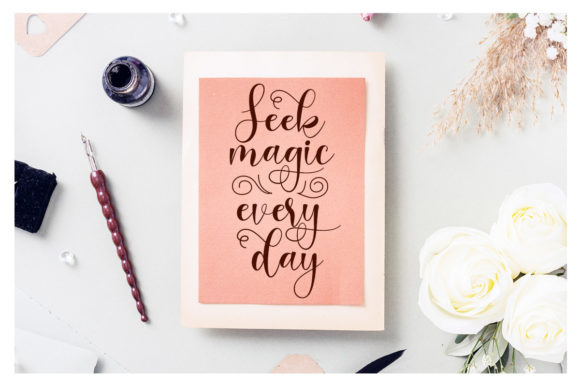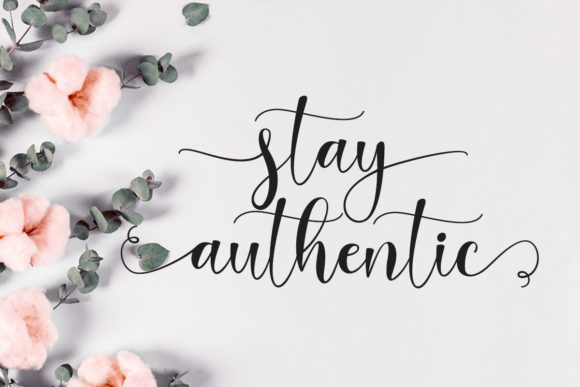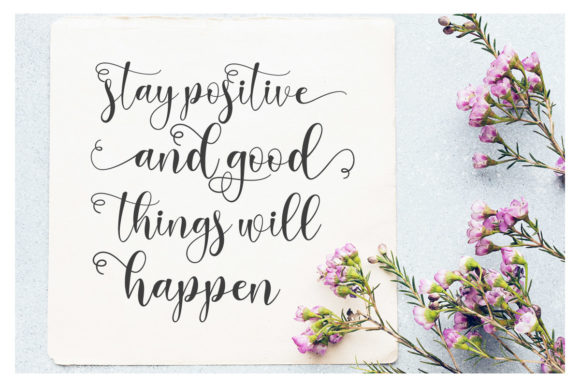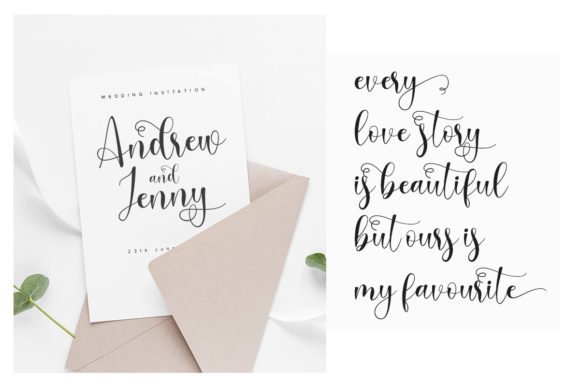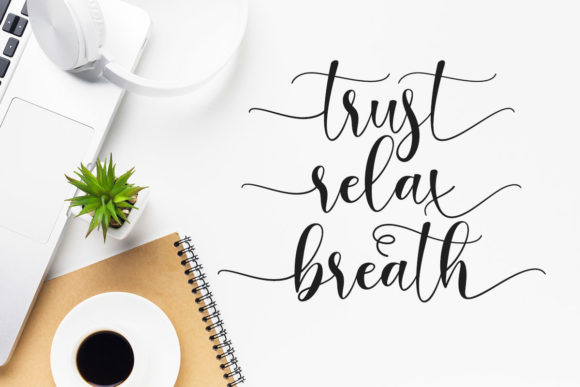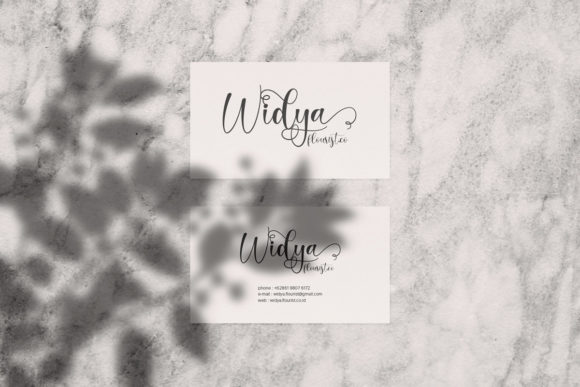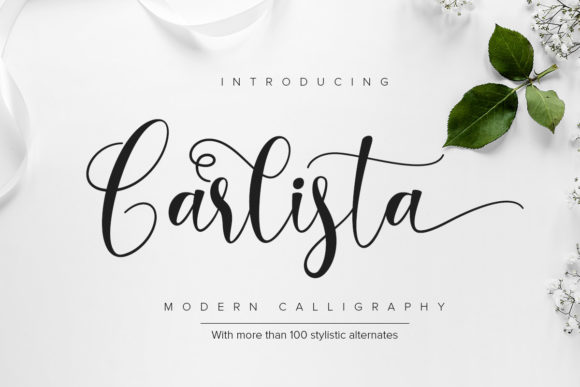
Introducing Carlista Font: The Ultimate Handwritten Script for Creative Projects
Are you a designer, crafter, or DIY enthusiast looking for a font that can add a personal touch to your creative projects? Look no further than Carlista Font, a cute and casual handwritten script that is sure to delight. With its incredibly friendly feel, gorgeous swashes, and ligatures, Carlista is the perfect choice for anyone looking to turn their creative ideas into true works of art.
The Characteristics of Carlista Font
Carlista Font is a beautifully designed handwritten script that boasts a range of characteristics that make it stand out from other fonts. Its casual and friendly feel makes it perfect for a wide range of creative projects, from social media graphics and Instagram posts to calligraphy scripts and DIY projects. The font features:
- Gorgeous Swashes: Carlista Font comes with a range of gorgeous swashes that can be used to add a touch of elegance and sophistication to your designs.
- Ligatures: The font also features ligatures, which are special characters that combine two or more letters to create a single, flowing character.
- Cute and Casual: Carlista Font has a cute and casual feel that makes it perfect for creative projects that require a personal touch.
- Handwritten: The font is handwritten, which gives it a unique and personal feel that is perfect for adding a touch of warmth and personality to your designs.
Uses for Carlista Font
Carlista Font is an incredibly versatile script that can be used for a wide range of creative projects, including:
- Instagram Graphics: Use Carlista Font to create stunning Instagram graphics that are sure to grab the attention of your followers.
- Calligraphy Scripts: The font is perfect for calligraphy scripts, making it a great choice for DIY projects and handmade cards.
- DIY Projects: Carlista Font can be used for a wide range of DIY projects, from crafting and scrapbooking to woodworking and home decor.
- Branding and Marketing: The font can also be used for branding and marketing projects, such as logos, brochures, and business cards.
Why Choose Carlista Font?
So why choose Carlista Font for your creative projects? Here are just a few reasons:
- Unique and Personal: Carlista Font has a unique and personal feel that is perfect for adding a touch of warmth and personality to your designs.
- Versatile: The font is incredibly versatile, making it perfect for a wide range of creative projects.
- Elegant and Sophisticated: The font’s gorgeous swashes and ligatures make it perfect for creating elegant and sophisticated designs.
Tips for Using Carlista Font
Here are a few tips for using Carlista Font in your creative projects:
- Experiment with Swashes: Don’t be afraid to experiment with the font’s gorgeous swashes to add a touch of elegance and sophistication to your designs.
- Use Ligatures: Use the font’s ligatures to create flowing, connected characters that add a touch of warmth and personality to your designs.
- Mix and Match: Don’t be afraid to mix and match Carlista Font with other fonts to create unique and interesting combinations.
- Have Fun: Most importantly, have fun with Carlista Font and enjoy the process of creating something truly special.
| Author | Yumna_Type |
In conclusion, Carlista Font is a beautiful and versatile handwritten script that is perfect for a wide range of creative projects. With its gorgeous swashes, ligatures, and cute and casual feel, Carlista is sure to delight designers, crafters, and DIY enthusiasts alike. Whether you’re looking for fonts for Instagram or calligraphy scripts for DIY projects, Carlista Font is the perfect choice. So why wait? Download Carlista Font today and start turning your creative ideas into true works of art!